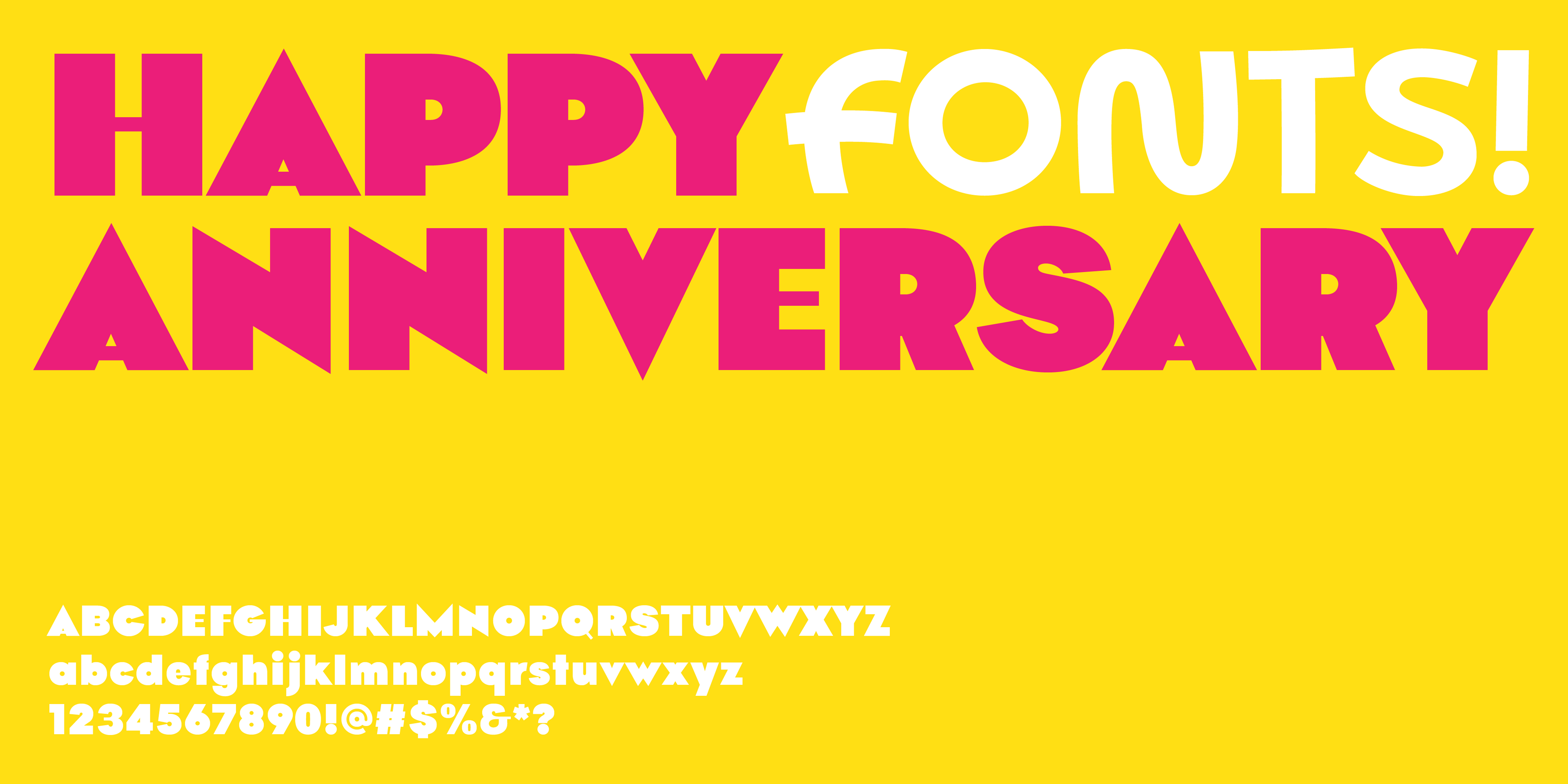
Typefaces to say “Happy Anniversary!”
Happy Anniversary fonts
Wishing someone a happy anniversary is personal. If you don’t want to use your personal handwriting, you have three main design directions you can take your text design to.
1. Blocky fun fonts like Bool
Blocky fun font
Bool is a playful font that looks very blocky in its thicker weights. This typeface has pointy tips (for example, see letters A, M, and N) and thinner horizontal bars (see letters A and H). These features make this font fun and cute.
2. Handwritten fonts to be personal
Cursive, happy font Lace
Lace is available in a straight cap version and a rounded style. The former—shown above—is a little cooler, looks minimal and friendly in tone, and works well in all uppercase letters for headlines, such as “Happy Anniversary!”
Fun bubble font
Skay has only uppercase letters, which makes this font great for titles. While lighter weights represent a pen when using a personal font, bolder weights like the one shown in the top image look like a big soft paintbrush, adding an artistic feel to any text.
3. Elegant serif fonts with a personal touch
Serif font with vintage feel
On the contrary, Kijs works best in a lighter weight such as Thin, Light, or ExtraLight to convey a personal tone. Some of the Kijs’s letters are cursive and fall out of line, making titles and headlines look more uneven, natural, and personal.